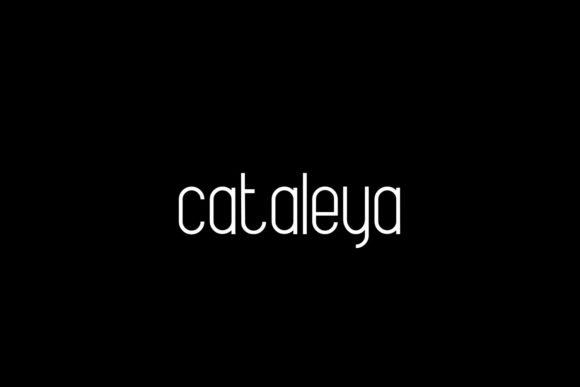
Have you ever stared at a blank page, waiting for inspiration to strike? You know, that moment when everything seems to be just out of reach, and you’re not sure where to start? For designers, this feeling is all too familiar. But what if you had the right tools to spark that creative flame? Enter the Cataleya Font, a modern and minimal sans serif font that’s about to change the game.
Crafted with precision and attention to detail, Cataleya Font is the perfect choice for business logos, marketing materials, and promotional designs. Its professional and almost perfect-looking characters make it a valuable asset for any designer looking to elevate their work. Whether you’re working on a high-profile project or just need a reliable font for everyday use, the Cataleya Font is sure to deliver.
Cataleya Font Key Features
- Font Family: Cataleya Font is a sans-serif font family that includes 6 weights (Thin, Light, Regular, Medium, Bold, Black) and italics for each weight.
- Unique Characteristics: Cataleya Font features a unique geometric design with clean lines and a modern aesthetic, making it suitable for a wide range of applications, including corporate branding, digital products, and publishing.
- Language Support: Cataleya Font supports a wide range of languages, including Latin, Cyrillic, and Greek alphabets.
Cataleya Font Review
I recently had the chance to work with Cataleya Font, and I must say it’s a beautiful addition to any design project. ✨ The flowing curves and elegant lines make it perfect for creating a sophisticated and modern look.
One of the things that stands out about Cataleya Font is its versatility. ✨ It’s suitable for both body text and headings, and it works well in a variety of contexts, from digital design to print materials. The font’s subtle texture adds a touch of depth and visual interest that’s hard to find in other fonts.
What Doesn’t Work So Well
While Cataleya Font is generally easy to read, I did notice that it can be a bit challenging to use in very small sizes. ⚠️ The font’s delicate lines can get lost in tiny text, making it difficult to distinguish individual letters. Additionally, the font’s texture can sometimes make it hard to read in low-light conditions.
- May not be suitable for very small text sizes
- Can be difficult to read in low-light conditions
- Limited language support (check compatibility before use)
Cataleya Font is a beautiful and versatile font that’s perfect for designers looking to add a touch of elegance to their projects. While it may have some limitations, it’s definitely worth considering for the right project. With a little care and attention, Cataleya Font can help you create stunning designs that are sure to impress.
Getting the Most Out of Cataleya Font
Use Cataleya Font to add a touch of elegance and sophistication to your designs. Here are some tips:
Pair Cataleya Font with a bold font for contrast and visual interest.
Use Cataleya Font for headings and titles to create a sense of hierarchy.
Cataleya Font is perfect for:
Corporate branding and marketing materials.
Editorial and publishing design.
Alternatives to Cataleya Font
Great Vibes is a modern, elegant script font that is perfect for creating a sophisticated and stylish look. It is ideal for use in wedding invitations, branding materials, and other high-end designs. Great Vibes is more refined and less playful than Cataleya Font, making it a great choice for projects that require a more mature and professional tone.
Pacifico is a beautiful, handwritten font that is reminiscent of tropical vacations and relaxed, beachy vibes. It is perfect for use in designs that require a fun and casual tone, such as social media graphics, blog posts, and advertising materials. Pacifico is more laid-back and carefree than Cataleya Font, making it a great choice for projects that require a more laid-back and approachable tone.